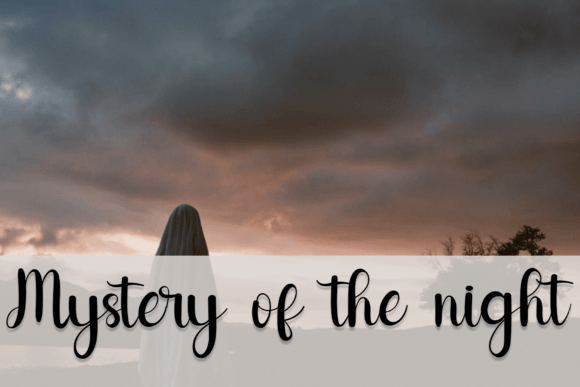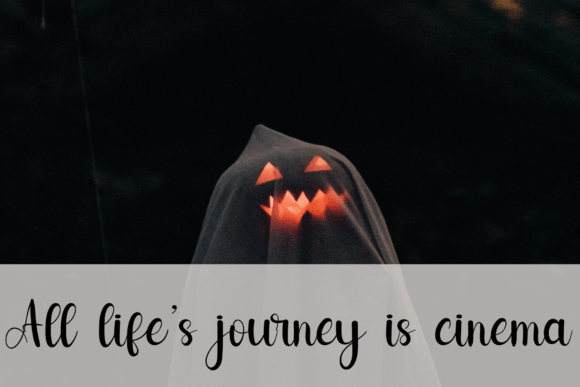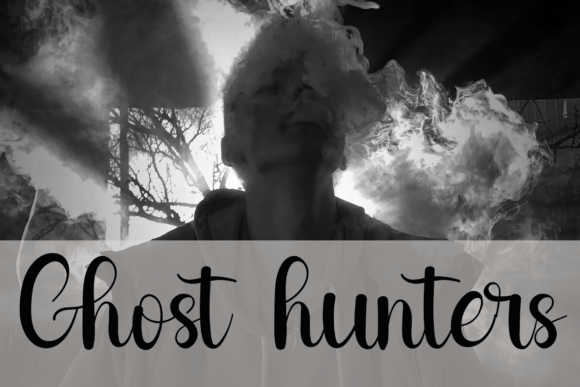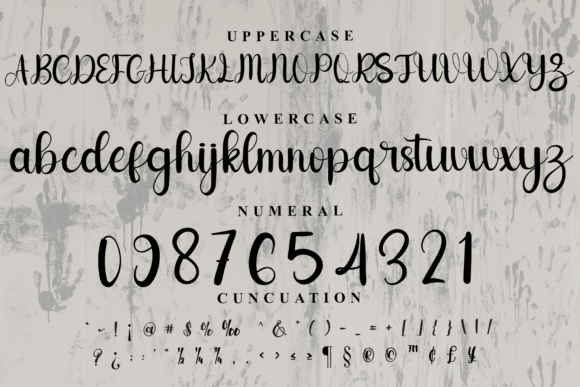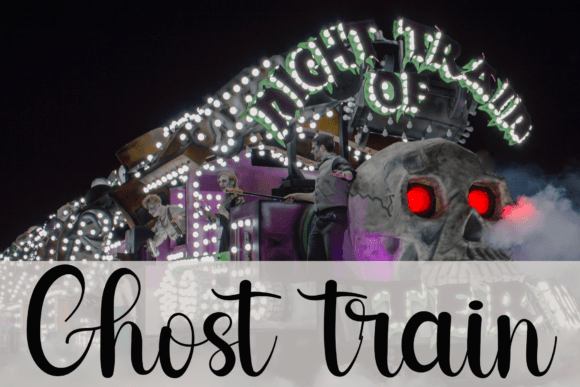
Introduction to Hounted Font
Do you ever find yourself sitting in front of a blank screen, struggling to bring your creative vision to life? For designers, this can be a daunting task, especially when it comes to finding the perfect font to match our artistic intent. I recall one such moment when I was working on a project and stumbled upon the Hounted Font – a game-changer that elevated my design to a whole new level.
As a high-quality design resource, the Hounted Font has quickly become a favorite among creatives. Its unique blend of classy calligraphic influences and contemporary flair makes it the perfect addition to any project. Whether you’re working on a branding campaign or a personal blog, the Hounted Font is sure to bring a touch of sophistication and elegance to your design.
One of the standout features of the Hounted Font is its versatility. With a transparent background option available for free download, you can easily integrate it into your design without worrying about background clutter. This makes it an invaluable resource for designers looking to add a professional touch to their creative projects.
Key Features of Hounted Font
- Unique, spooky font style with transparent background for easy customization
- Perfect for Halloween-themed designs, horror movies, or spooky atmosphere
- Designed to add a touch of eeriness and mystery to your design, making it a valuable addition to any design resource collection
Honest Review: Hounted Font
As a designer, I’m always on the lookout for high-quality design resources that can elevate my creative projects. The Hounted Font is one such resource that caught my attention recently. In this review, I’ll share my honest thoughts on this font and what it has to offer.
- Unique aesthetic: The Hounted Font has a distinct, eerie vibe that’s perfect for projects that require a touch of mystery.
- High-quality design: The font is well-designed, with clear lines and a transparent background that makes it easy to use.
- Limited character set: While the font is well-designed, its character set is somewhat limited, which may not be ideal for complex projects.
- No bold or italic variants: The font only comes in a regular weight, which may not be suitable for all design applications.
Overall, I think the Hounted Font is a great addition to any designer’s toolkit. Its unique aesthetic and high-quality design make it a valuable resource for creative projects. However, its limitations may be a drawback for some users. If you’re looking for a free, high-quality font for your next project, the Hounted Font is definitely worth considering.
Introduction to Hounted Font
Hounted Font is a high-quality design resource ideal for creative projects. This versatile font features a unique and spooky design that can add a touch of elegance to any project.
Tips for Getting the Most Out of Hounted Font
To maximize the use of Hounted Font, experiment with different font combinations, sizes, and colors. Don’t be afraid to push the limits of this versatile font and make it your own.
Common Use Cases for Hounted Font
Hounted Font is perfect for designing:
- Spooky-themed projects
- Creepy invitations and party decorations
- High-end branding and marketing materials